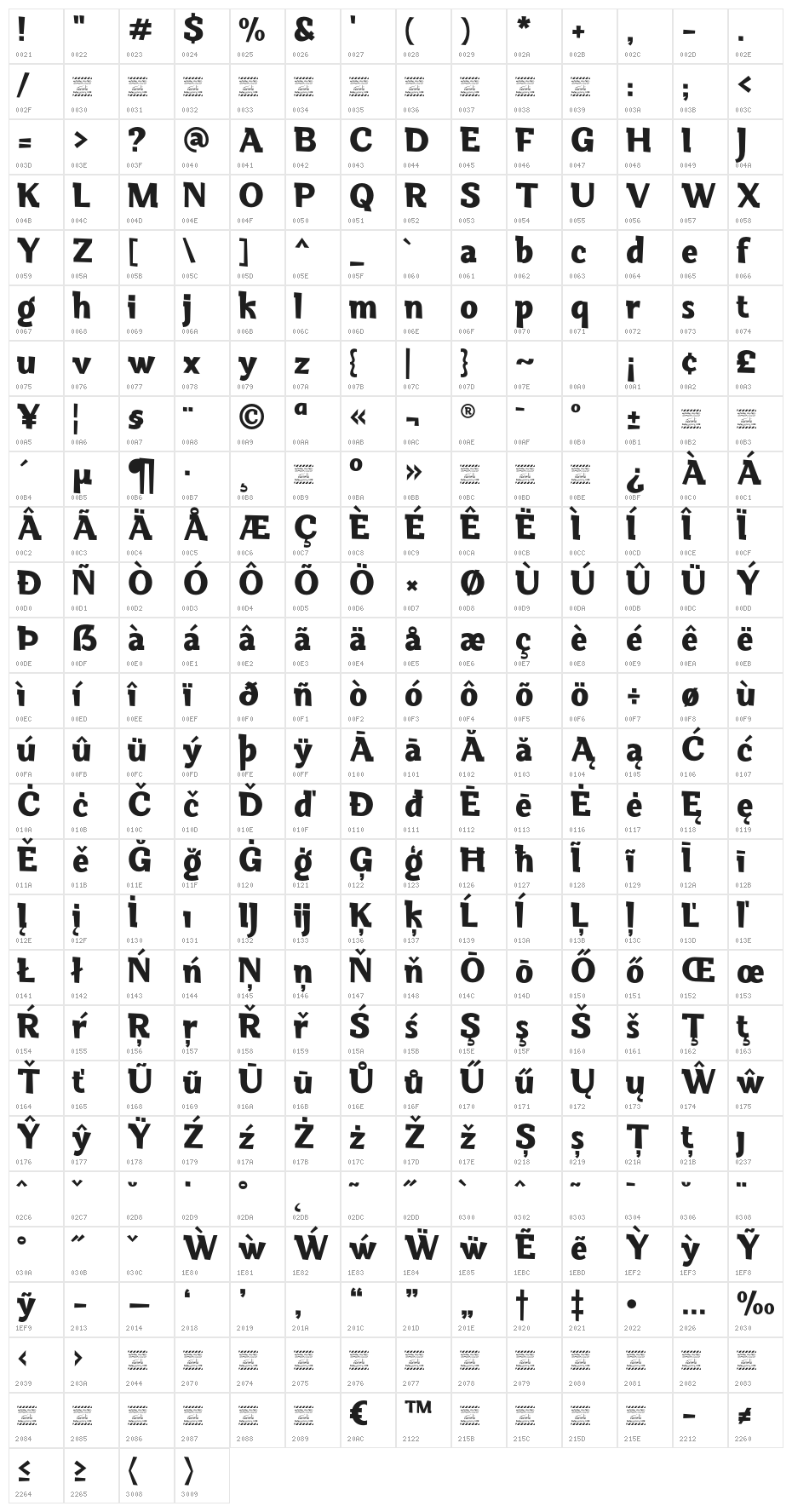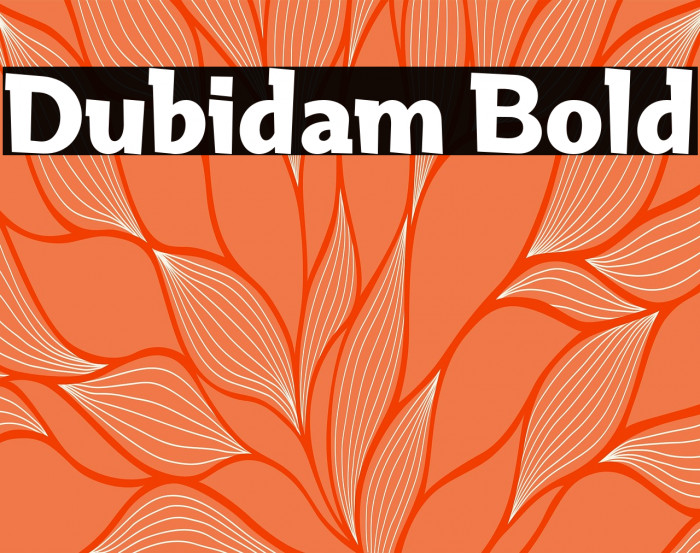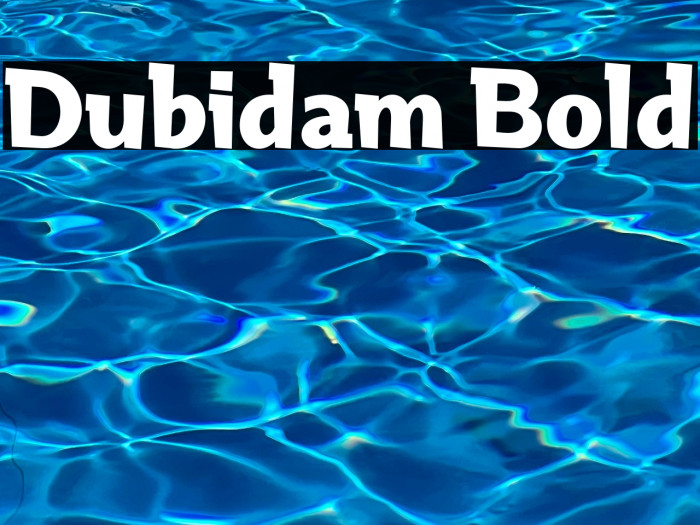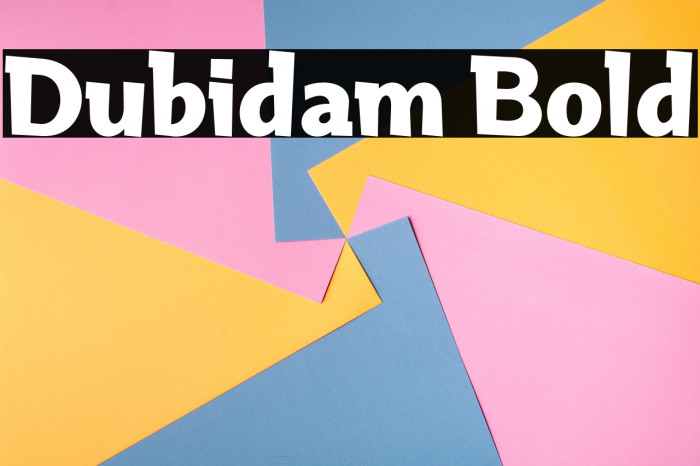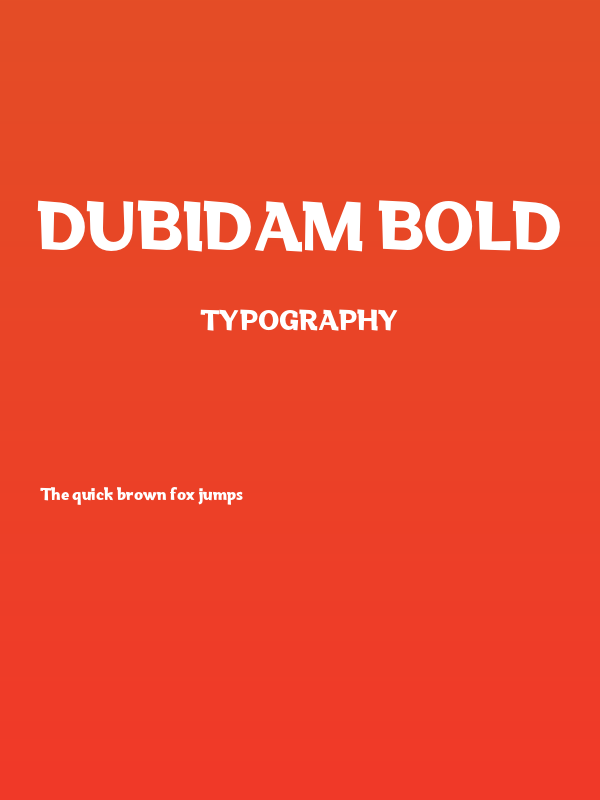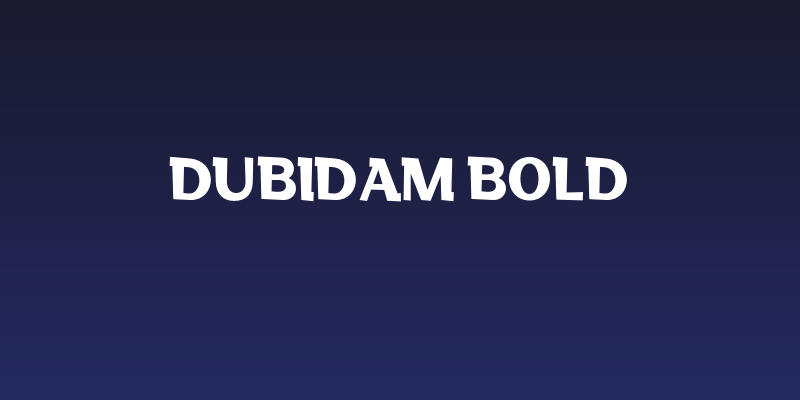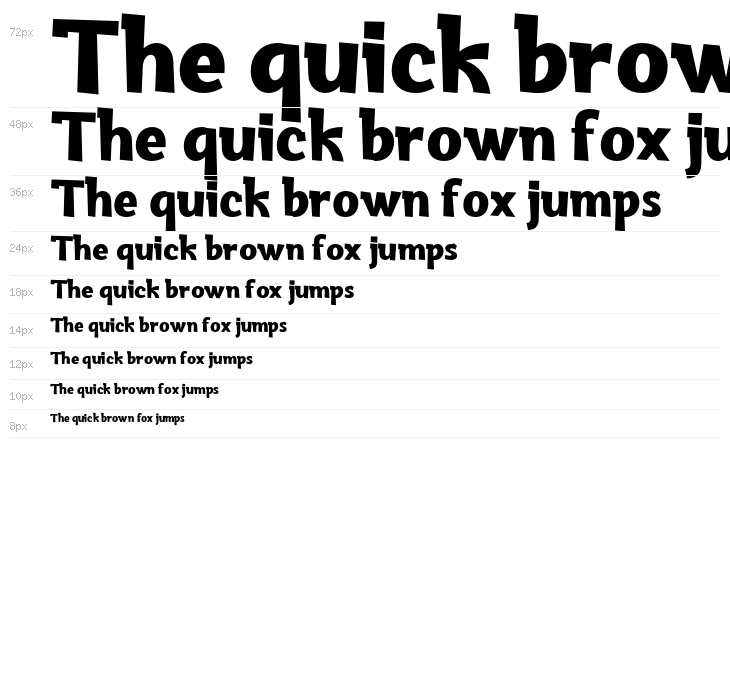
Dubidam Bold Font
Dubidam Bold Description
This font exhibits a bold and playful character, with a distinctive and slightly irregular design that adds a touch of whimsy. The letters are thick and robust, with a slight slant that gives them a dynamic appearance. The strokes are consistent in weight, contributing to a cohesive look, while the rounded edges soften the overall feel. The font maintains a balance between readability and decorative flair, making it suitable for attention-grabbing headlines or creative projects. Its unique style is both modern and approachable, appealing to a wide range of audiences.
| Overall Style | Playful, Modern |
| Proposed Projects | Ideal for children's books, playful branding, posters, and creative advertising. |